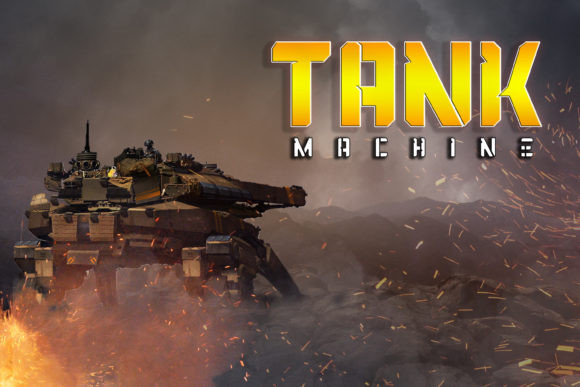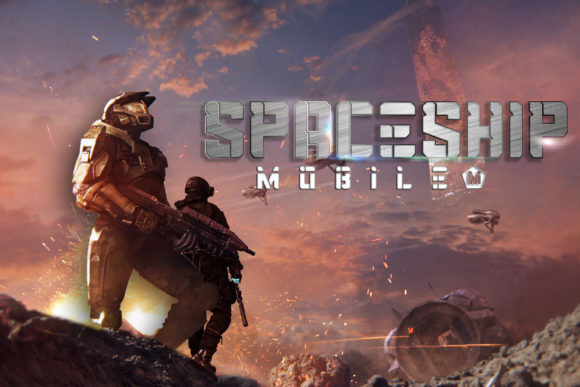
Cosmos Font
Cosmos is a spacious and futuristic font. The font features a mix of sharp and rounded corners, narrow spacing to accommodate for the wide letters. On top of everything, it has a blocky feel to it, making it ideal for titles, subtitles, and UI.